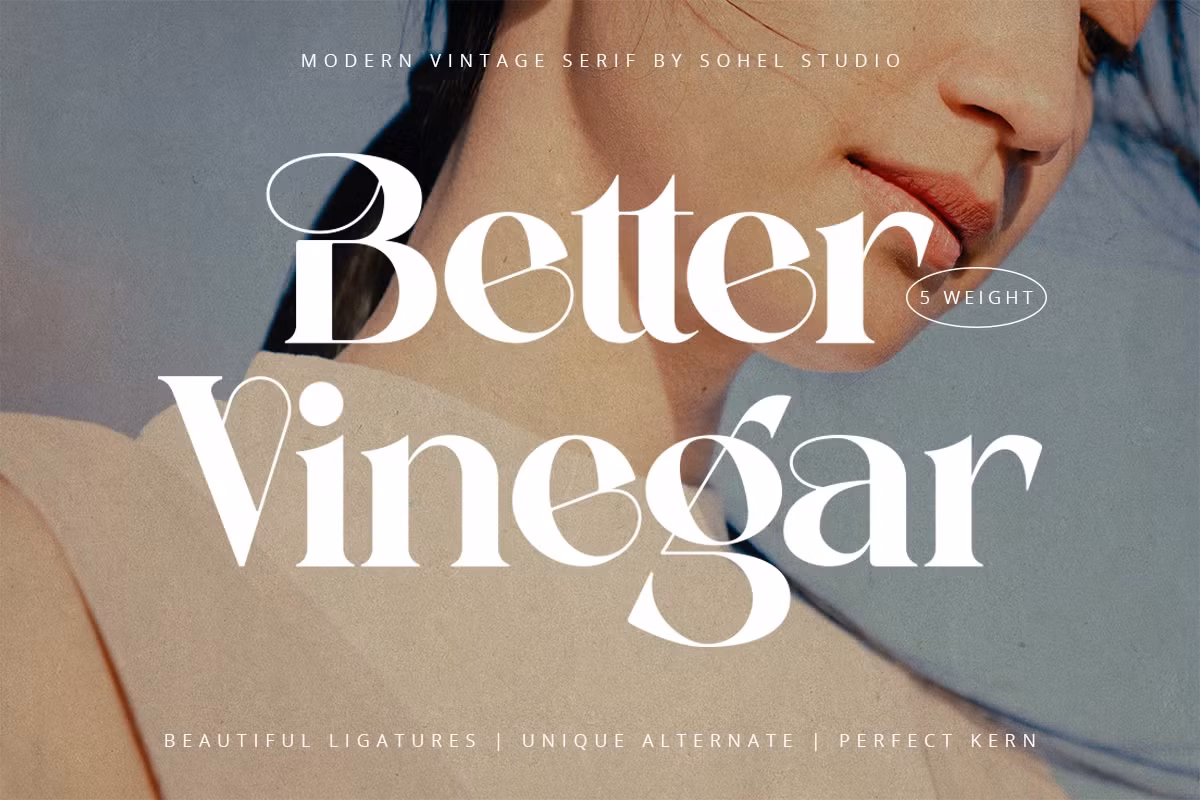
Better Vinegar – Beauty & Cosmetic Font Free Download is a refined and stylish typeface designed specifically for beauty, skincare, and luxury cosmetic branding. With its graceful curves and elegant structure, this font is perfect for packaging, logos, social media, and upscale editorial layouts.
Radiating softness and sophistication, Better Vinegar – Beauty & Cosmetic Font Free Download helps elevate your brand’s identity with a polished, modern aesthetic. Whether you're launching a clean beauty line or designing a high-end product label, this font delivers the perfect blend of femininity and professionalism. Try it today to see how it enhances your visuals—then upgrade to a commercial license when you're ready to take your branding to the next level.